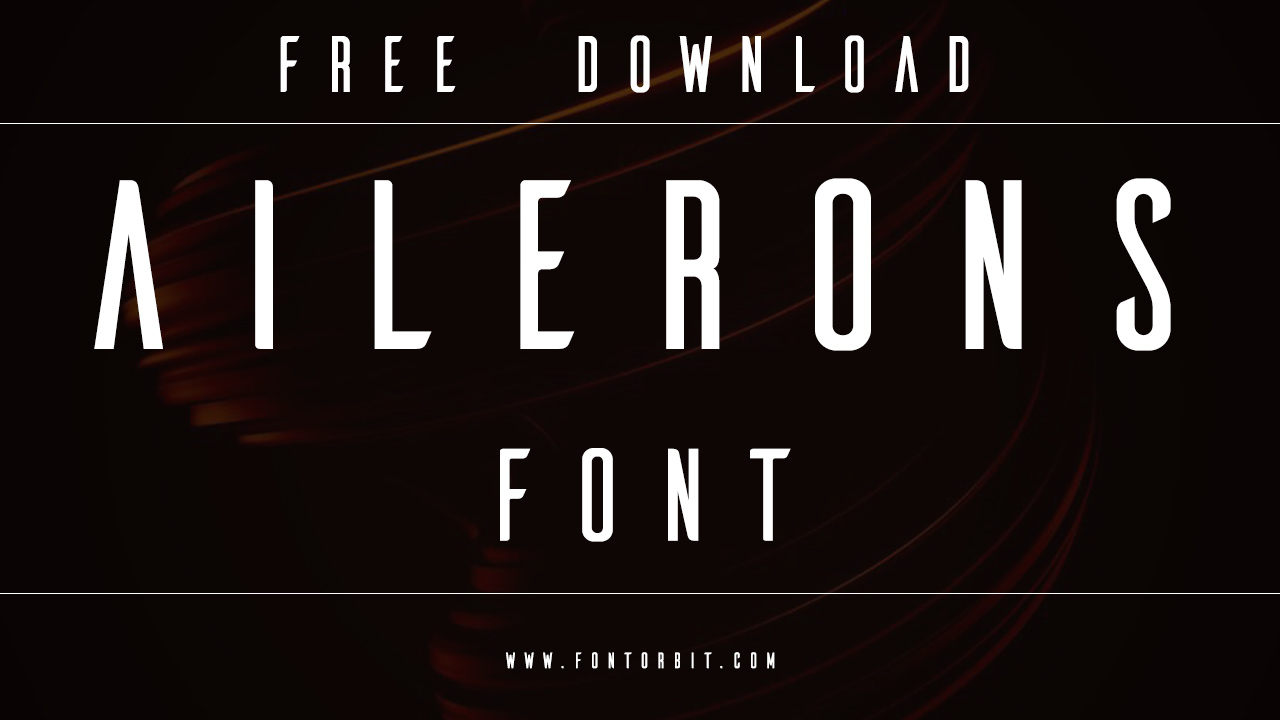
Ailerons Font is a sleek, sans-serif typeface inspired by aircraft models from the 1940s. Initially designed for an experimental airmodels project, it is now available for personal use.
The font was crafted by Brazilian designer Adilson Gonzales de Oliveira Junior and offers a modern, minimalist design with a retro flair. Released on September 22, 2022, the font family, including its various styles, makes it perfect for modern design projects that seek a vintage touch.
Ailerons Font Family Includes
The Ailerons font family is versatile, offering a wide range of styles from thin to heavy weights, perfect for various design needs. The family includes:
- Aileron Thin
- Aileron Thin Italic
- Aileron UltraLight
- Aileron UltraLight Italic
- Aileron Light
- Aileron Light Italic
- Aileron Regular
- Aileron Italic
- Aileron SemiBold
- Aileron SemiBold Italic
- Aileron Bold
- Aileron Bold Italic
- Aileron Black
- Aileron Black Italic
- Aileron Heavy
- Aileron Heavy Italic
Notable Uses Of Ailerons Font
Ailerons Font, with its clean and minimalist sans-serif design, has found notable use in various design fields due to its retro-inspired yet modern aesthetic. Here are some of the key areas where Ailerons Font shines:
- Aviation and Technology Branding
- Fashion Industry
- Posters and Advertising
- Web and App Design
- Packaging Design
- Film and Media
The Ailerons Font is ideal for projects that require a combination of vintage style and contemporary elegance. It’s particularly well-suited for:
- Branding and logos
- Packaging design
- Web design
- Editorial layouts
- Posters and flyers
- Vintage-inspired designs
Ailerons Font is a stylish and versatile typeface perfect for designers who want to incorporate a retro yet modern feel into their projects. With a wide array of font styles and a smooth, minimalist design, it’s a valuable addition to any designer’s toolkit.
3.Is Ailerons Font A Sans-Serif Typeface?
Yes, it is a sans-serif typeface.
5.What Projects Is Ailerons Font Best Suited For?
It’s perfect for branding, logos, and editorial designs.